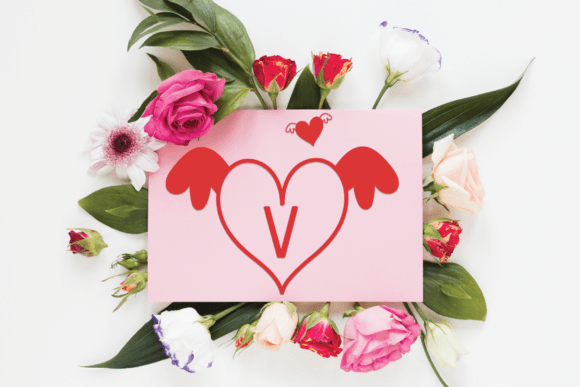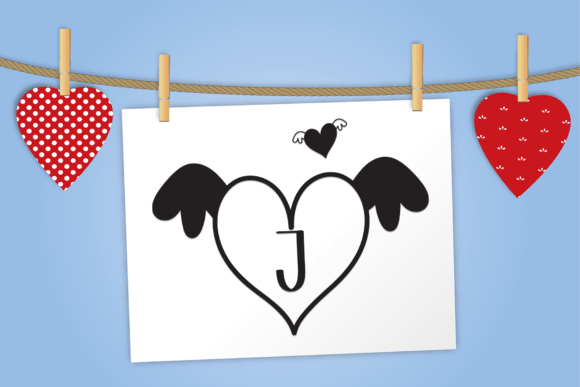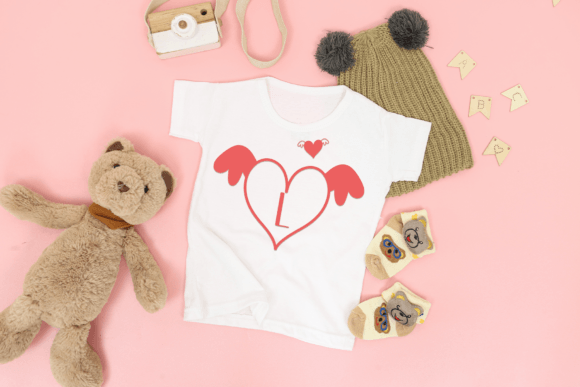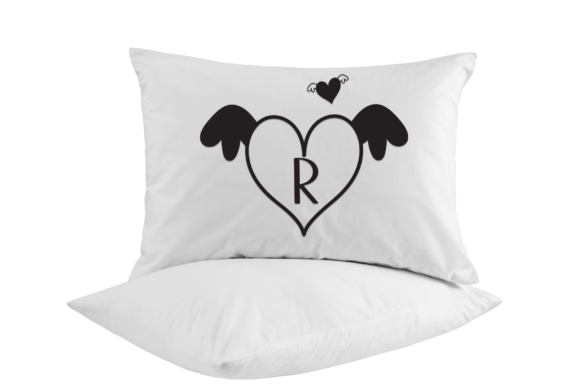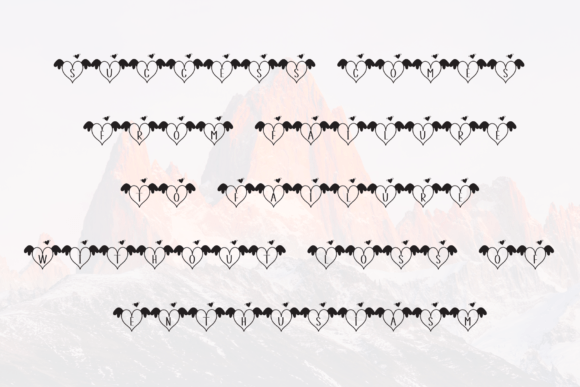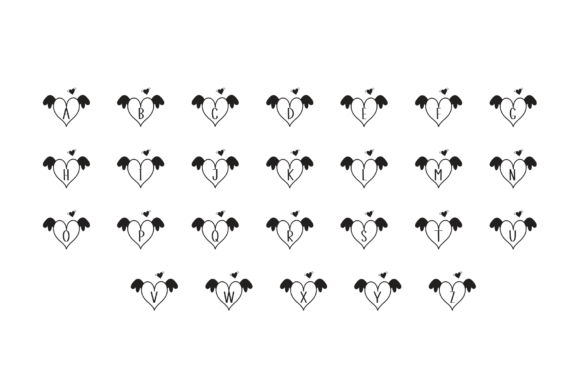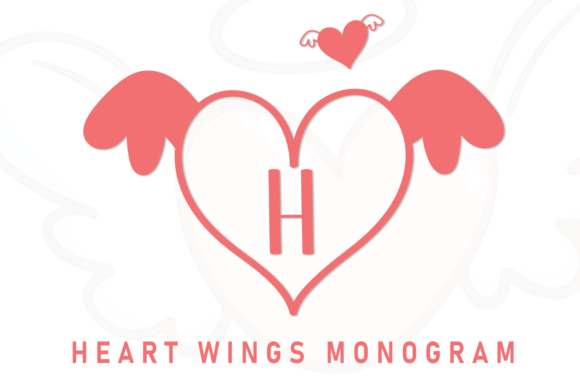
Heart Wings Monogram Font: A Symbol of Love, Freedom, and Spirituality
The Heart Wings Monogram Font is a beautiful and meaningful symbol that has gained popularity among designers, crafters, and individuals looking for a unique and expressive emblem. This monogram represents love, freedom, and spirituality, making it a popular choice for personal and creative projects. In this article, we’ll explore the significance of the Heart Wings Monogram Font, its design elements, and its various uses.
The Significance of the Heart Wings Monogram
The Heart Wings Monogram is a stunning combination of two powerful symbols: the heart and the wings. The heart shape signifies affection, compassion, and love, while the wings evoke a sense of upliftment, transcendence, and freedom. Together, they create a unique and visually captivating emblem that conveys a sense of emotional depth and spiritual connection.
Design Elements of the Heart Wings Monogram
The Heart Wings Monogram Font features a stylized heart shape with wings extending from it, creating a sense of movement and fluidity. The design is often characterized by clean lines, smooth curves, and a sense of symmetry, making it visually appealing and harmonious. The monogram can be customized to suit various design preferences, including different font styles, colors, and sizes.
Uses of the Heart Wings Monogram
The Heart Wings Monogram is a versatile symbol that can be used in various contexts, including:
- Logos and Branding: The Heart Wings Monogram can be used as a logo or symbol for businesses, organizations, or personal brands that want to convey a sense of love, freedom, and spirituality.
- Tattoos and Body Art: The monogram’s unique design and symbolism make it a popular choice for tattoos and body art, representing a personal connection to love, freedom, and spirituality.
- Personalized Stationery: The Heart Wings Monogram can be used on personalized stationery, such as greeting cards, journals, and letterheads, adding a touch of elegance and meaning to correspondence.
- Creative Projects: Designers and crafters can use the Heart Wings Monogram in various creative projects, such as scrapbooking, paper crafting, and digital art.
Why Choose the Heart Wings Monogram?
The Heart Wings Monogram Font is a popular choice among designers, crafters, and individuals for several reasons:
- Emotional Connection: The monogram’s symbolism creates an emotional connection with the viewer, conveying a sense of love, freedom, and spirituality.
- Unique Design: The Heart Wings Monogram features a unique and visually captivating design that stands out from other symbols and monograms.
- Versatility: The monogram can be used in various contexts, from logos and branding to tattoos and personalized stationery.
Tips for Using the Heart Wings Monogram
Here are some tips for using the Heart Wings Monogram Font:
- Choose the Right Font Style: Select a font style that complements the design and context in which the monogram will be used.
- Experiment with Colors: Try different colors and color combinations to find the one that best suits the design and intended use.
- Consider Customization: Customize the monogram to suit personal preferences, such as adding textures or modifying the design elements.
The Heart Wings Monogram Font is a beautiful and meaningful symbol that represents love, freedom, and spirituality. Its unique design and versatility make it a popular choice for designers, crafters, and individuals looking for a distinctive emblem. Whether you’re seeking a meaningful symbol to represent your emotions or looking for an eye-catching design element, the Heart Wings Monogram is sure to leave a lasting impression.